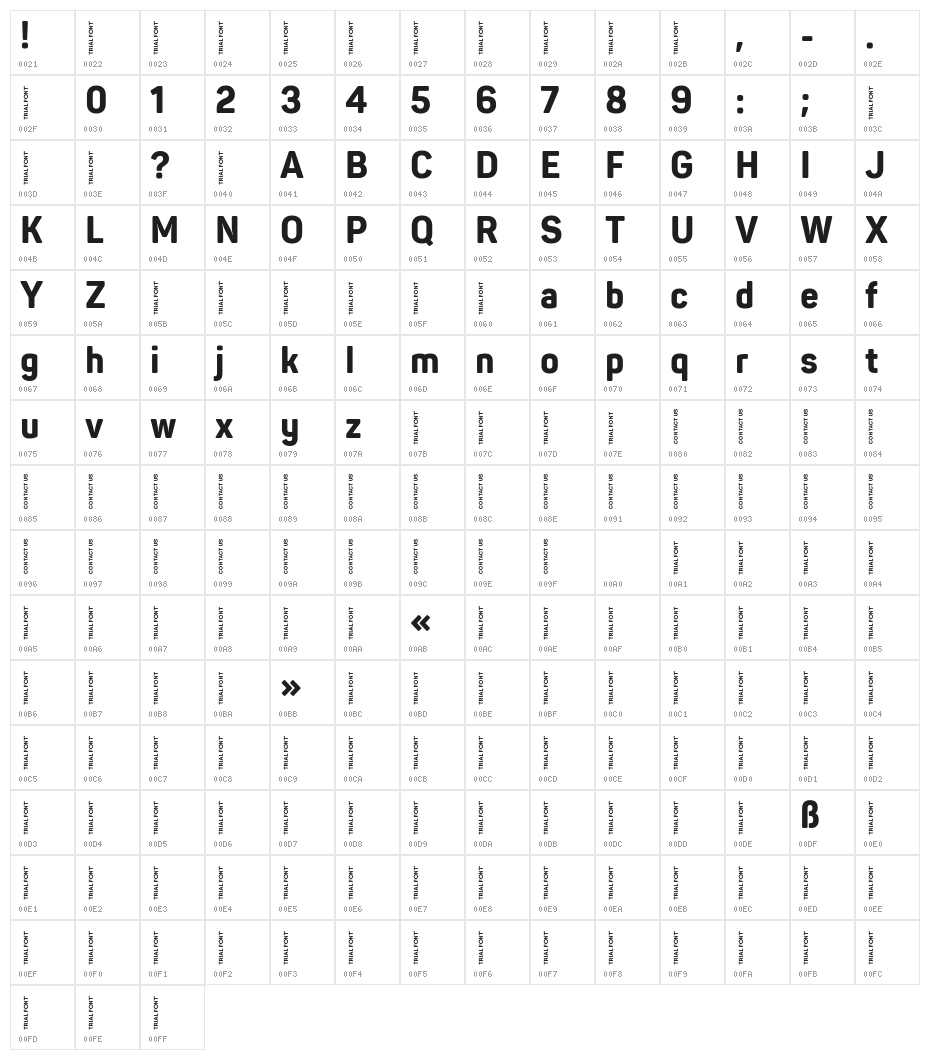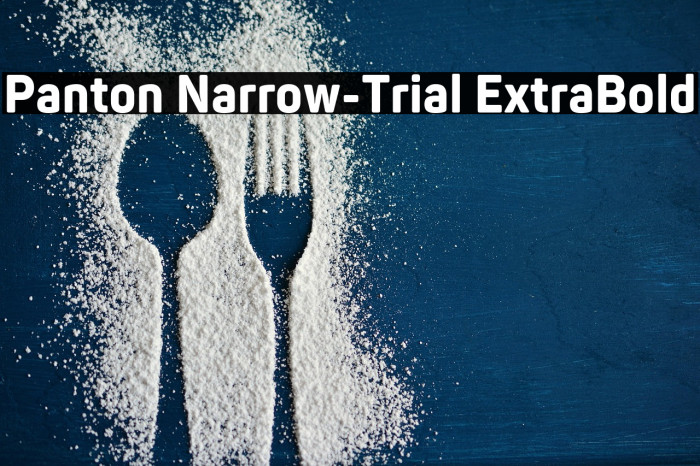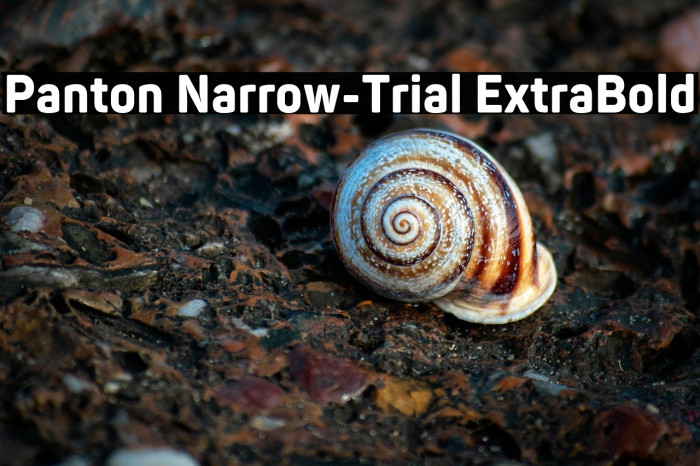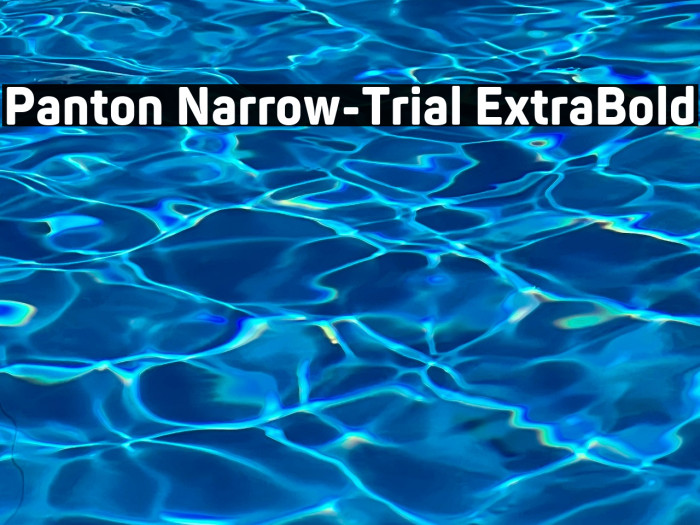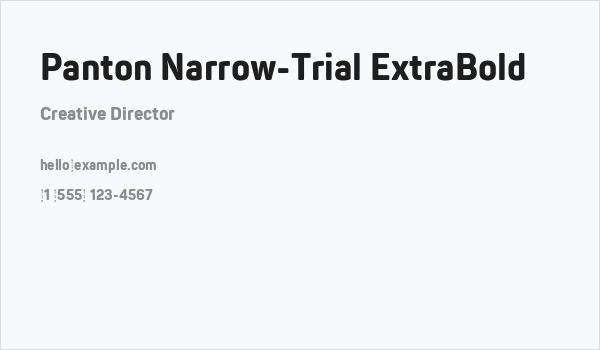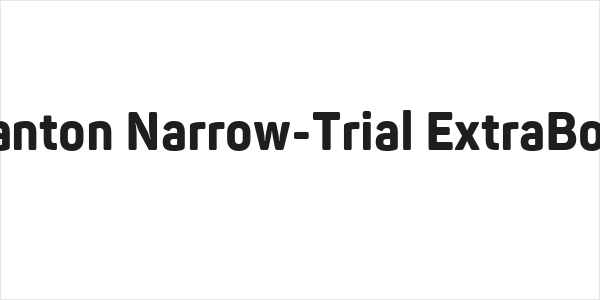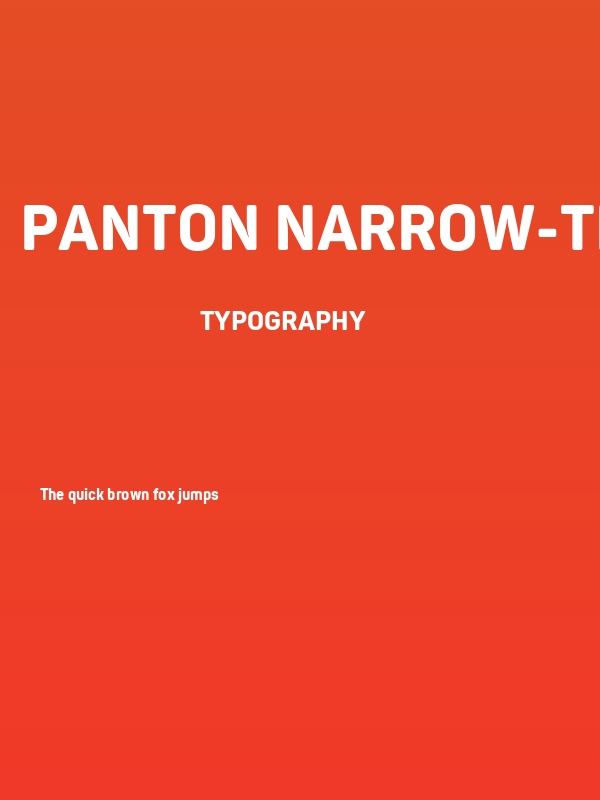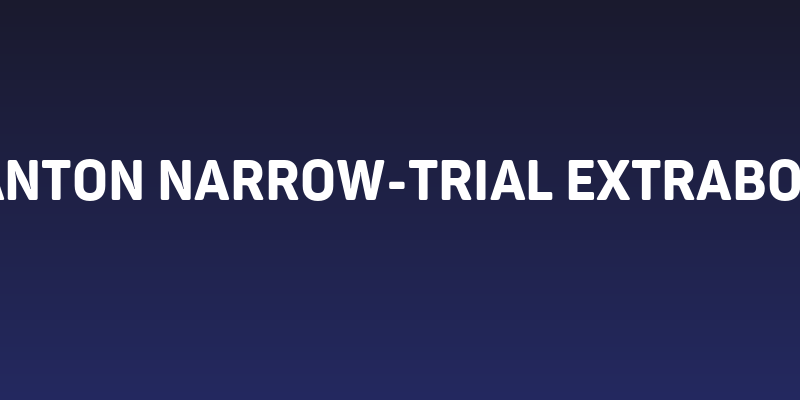
Panton Narrow-Trial ExtraBold Font
Panton Narrow-Trial ExtraBold Description
This font features a bold and modern sans-serif design with a narrow width, giving it a compact and efficient appearance. The characters are well-defined with smooth curves and clean lines, providing excellent readability. The uppercase and lowercase letters maintain a consistent style, while the numerals are clear and distinct. Special characters are included, adding versatility to its use. The overall design is sleek and contemporary, making it suitable for a variety of applications.